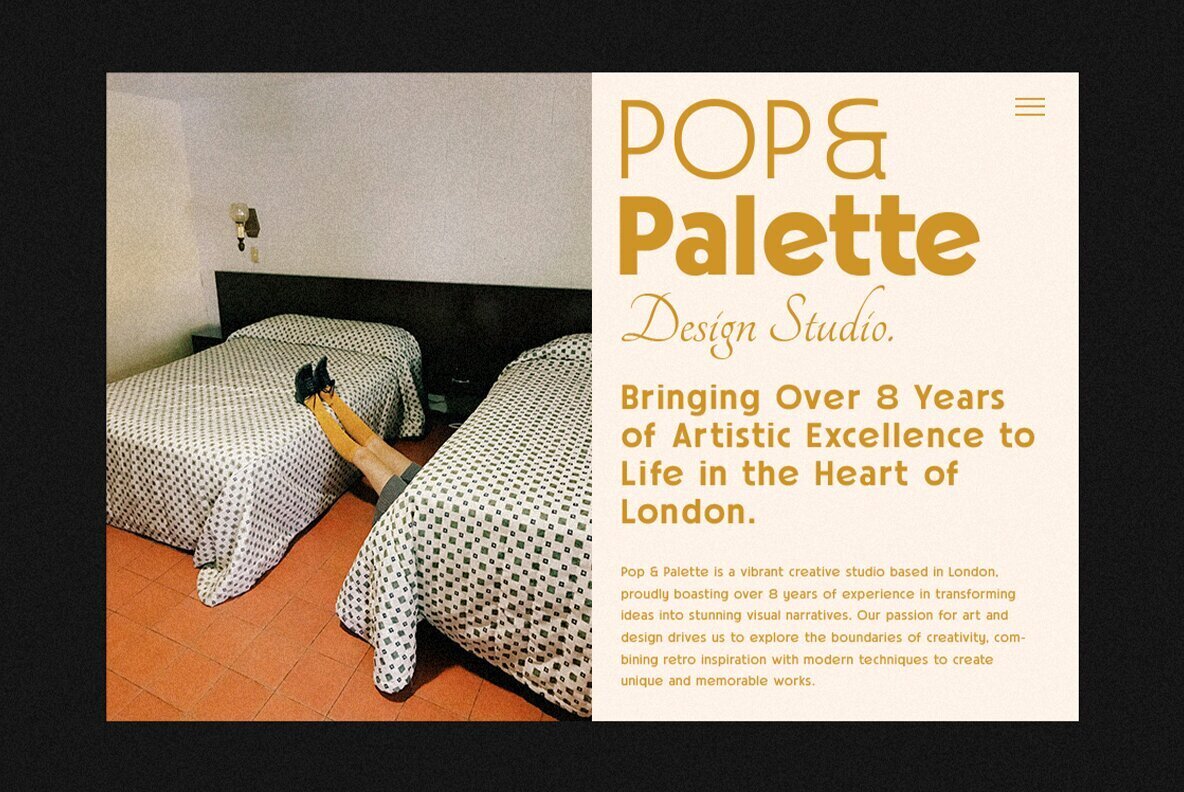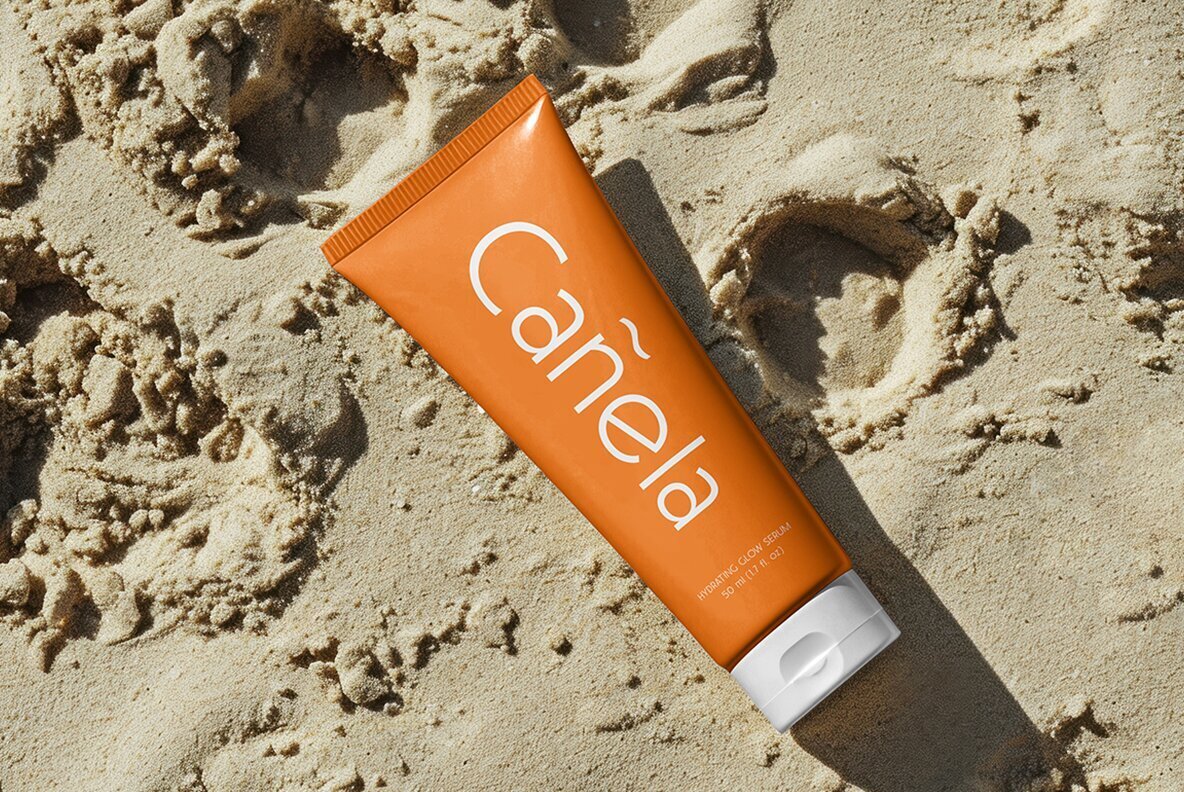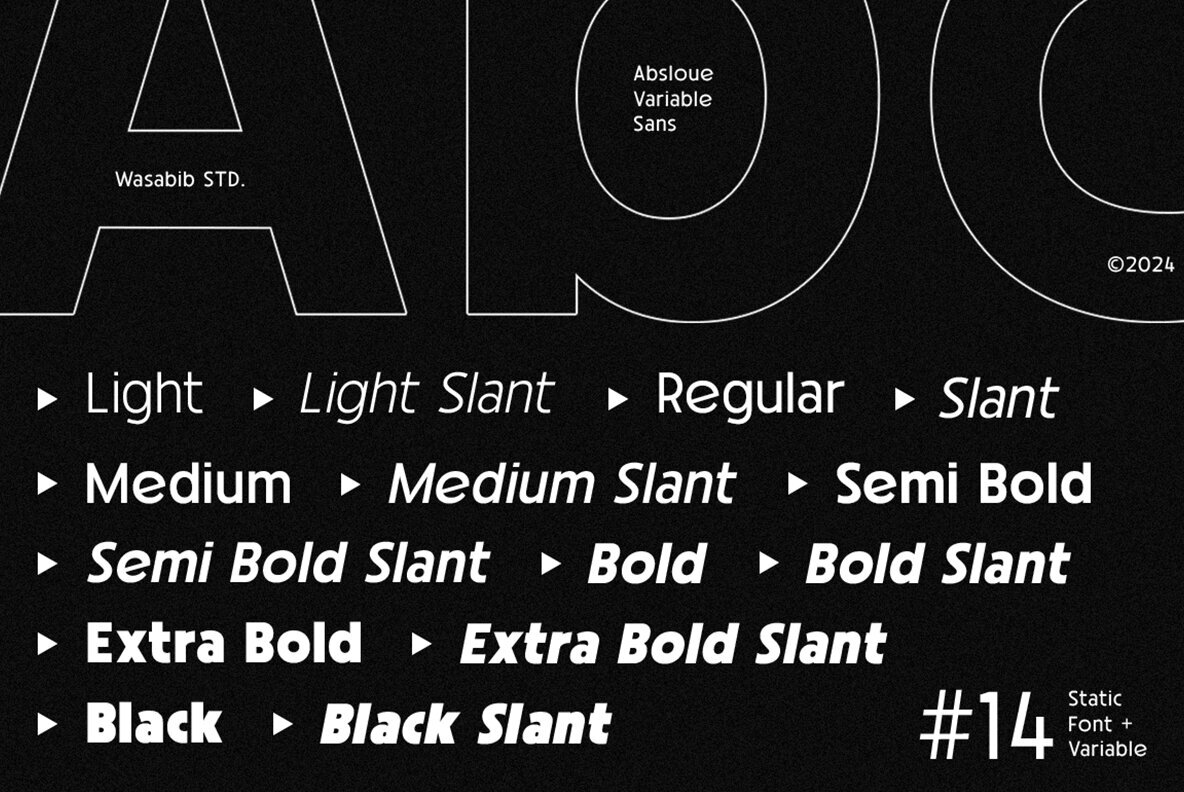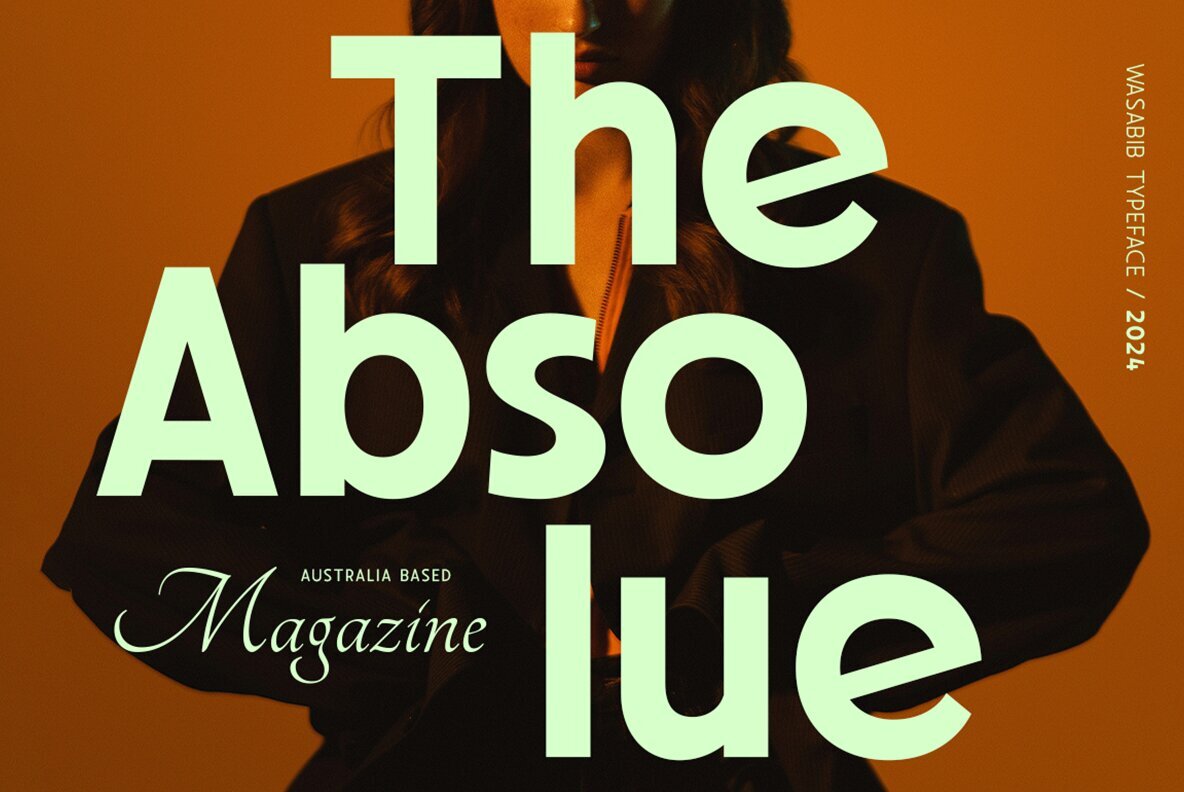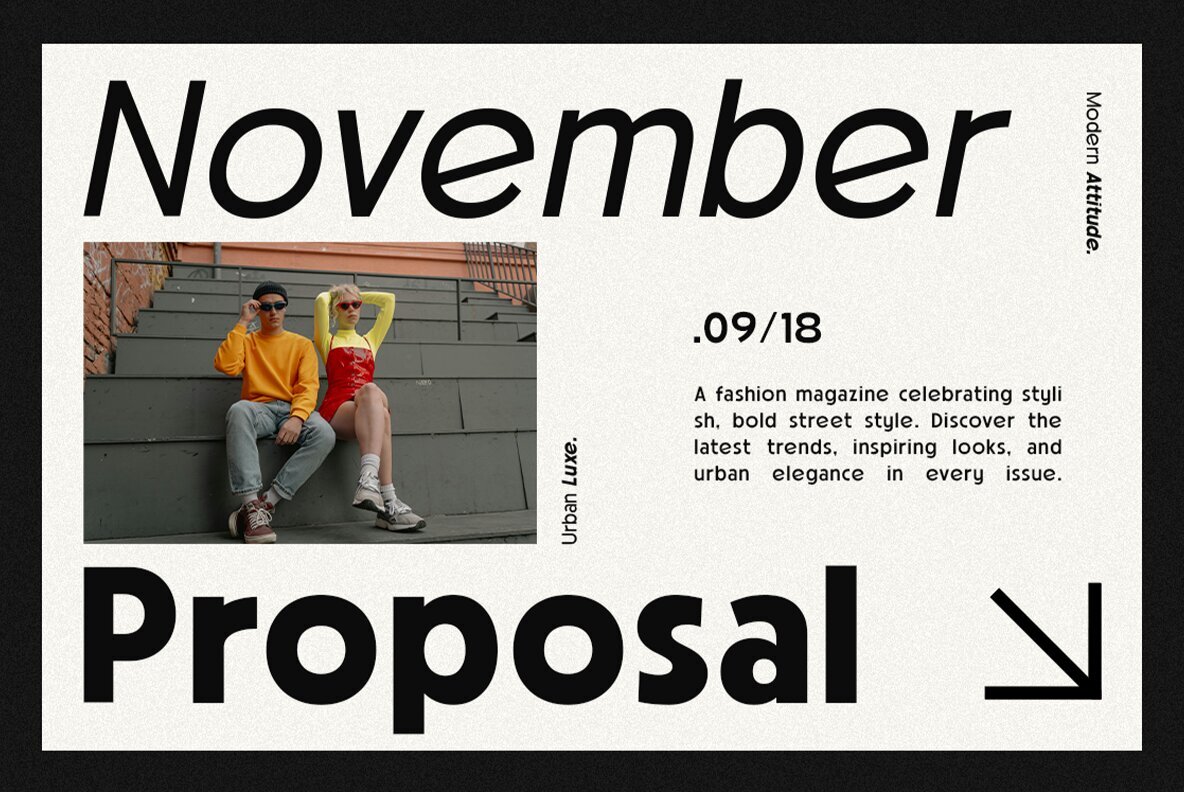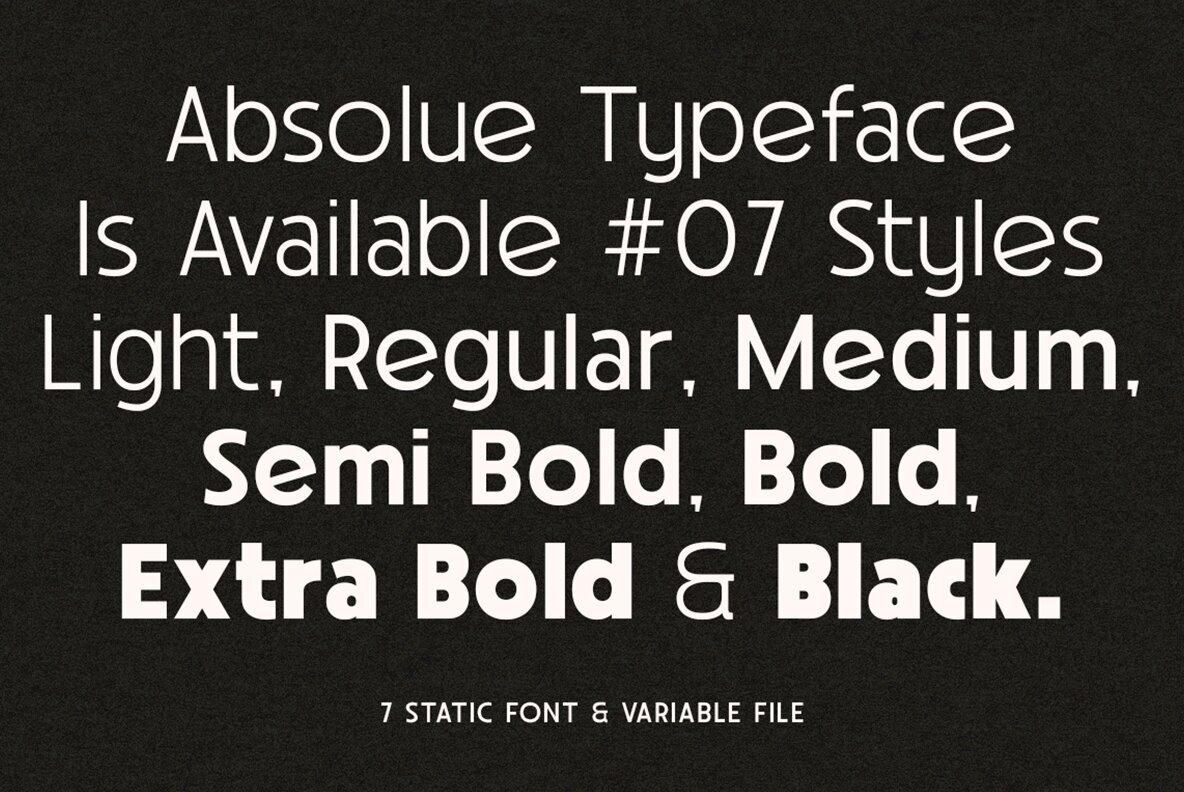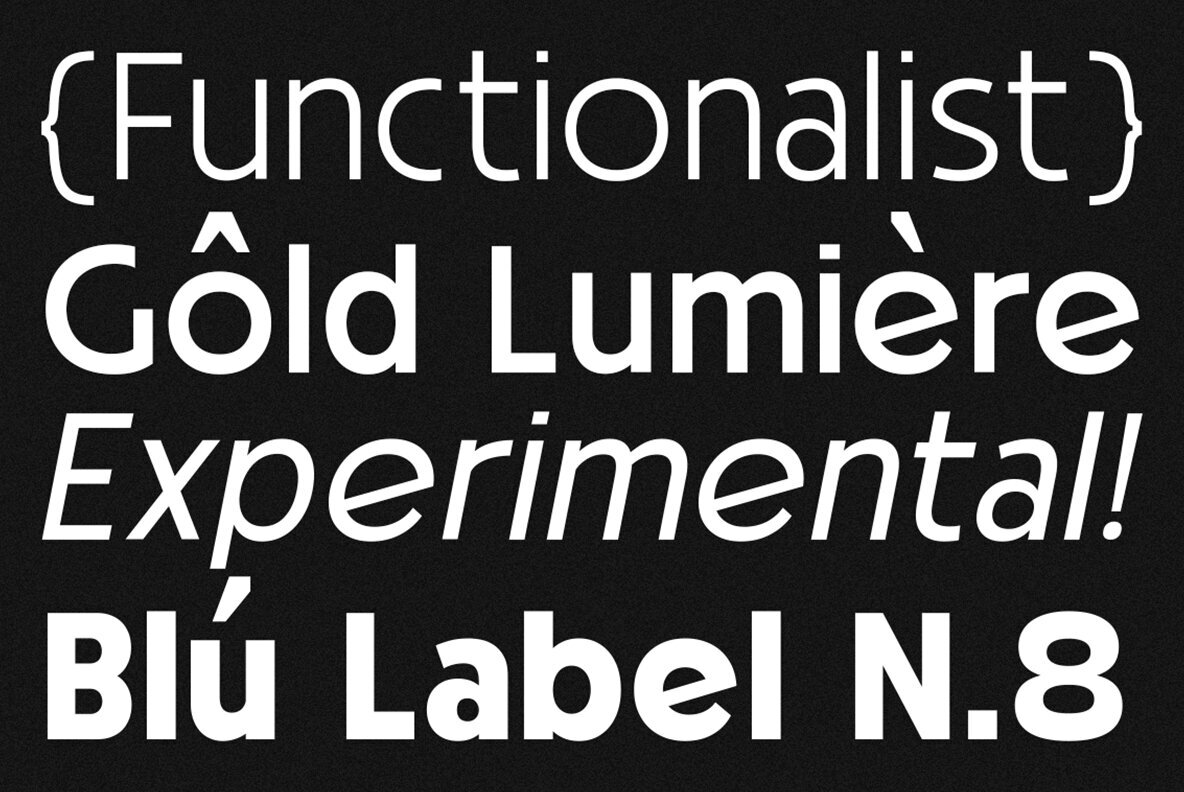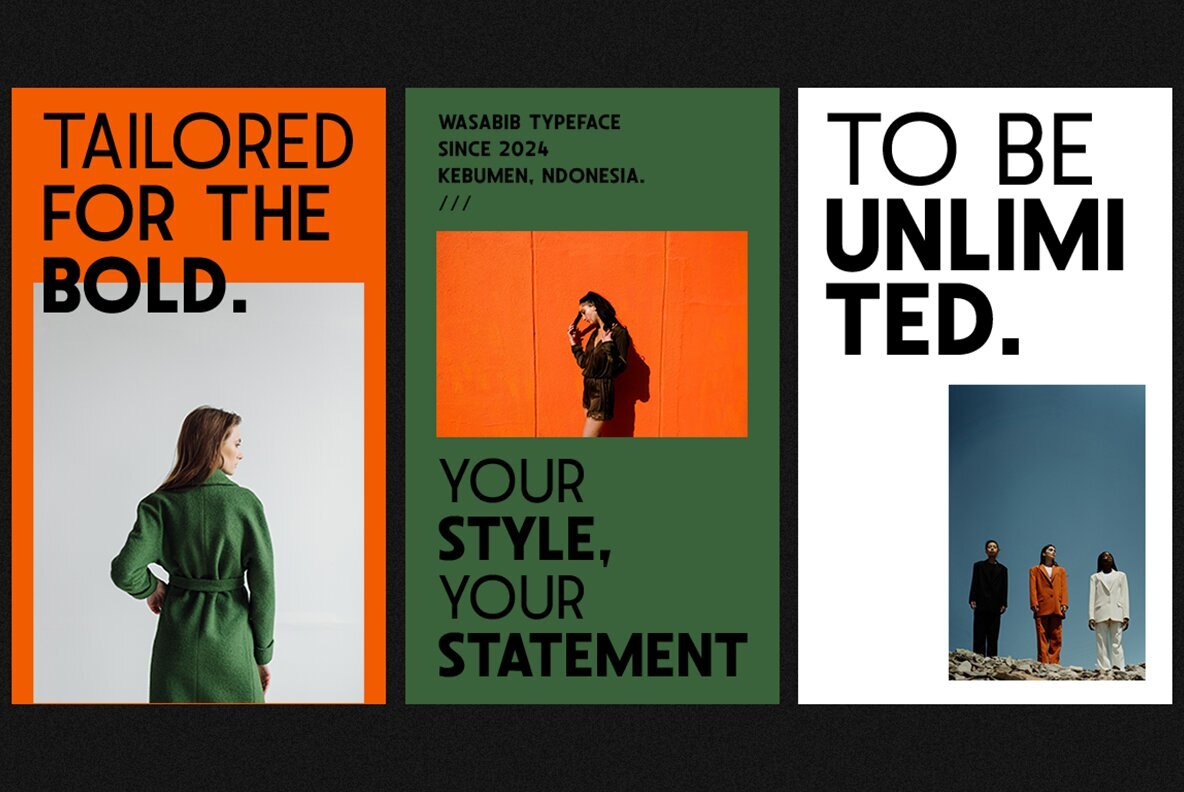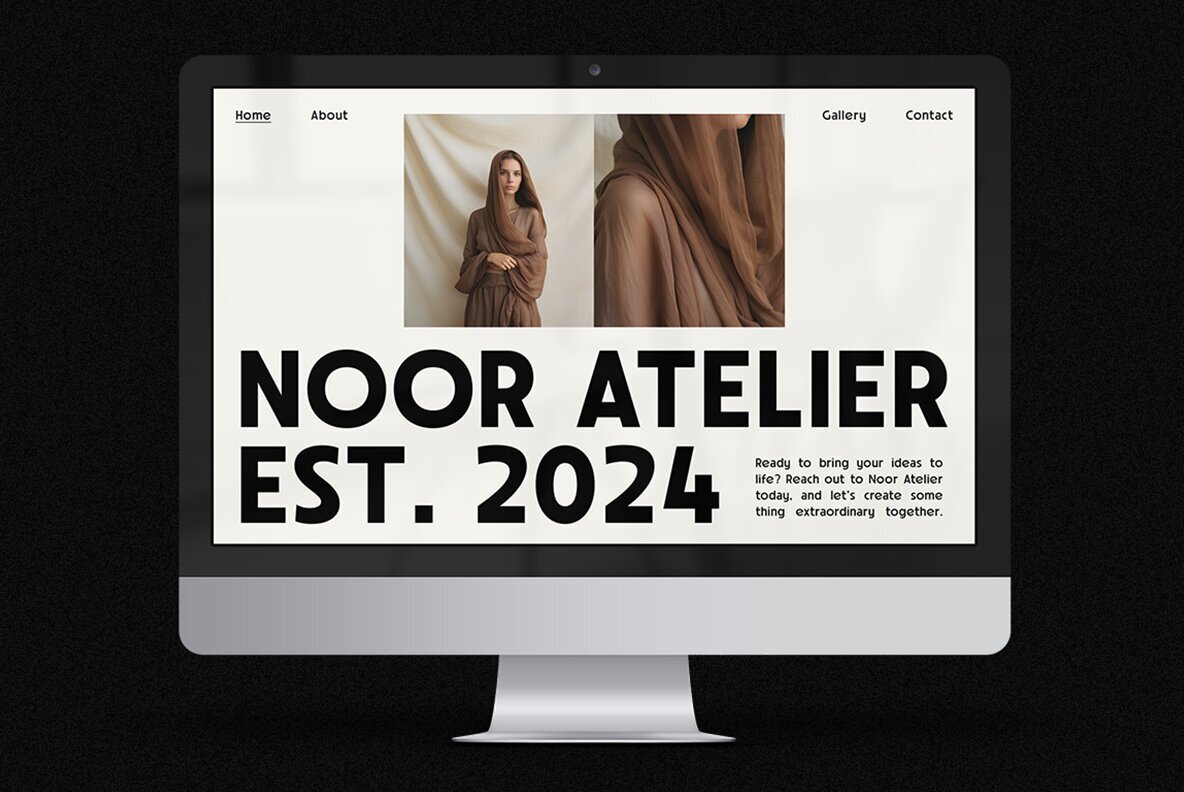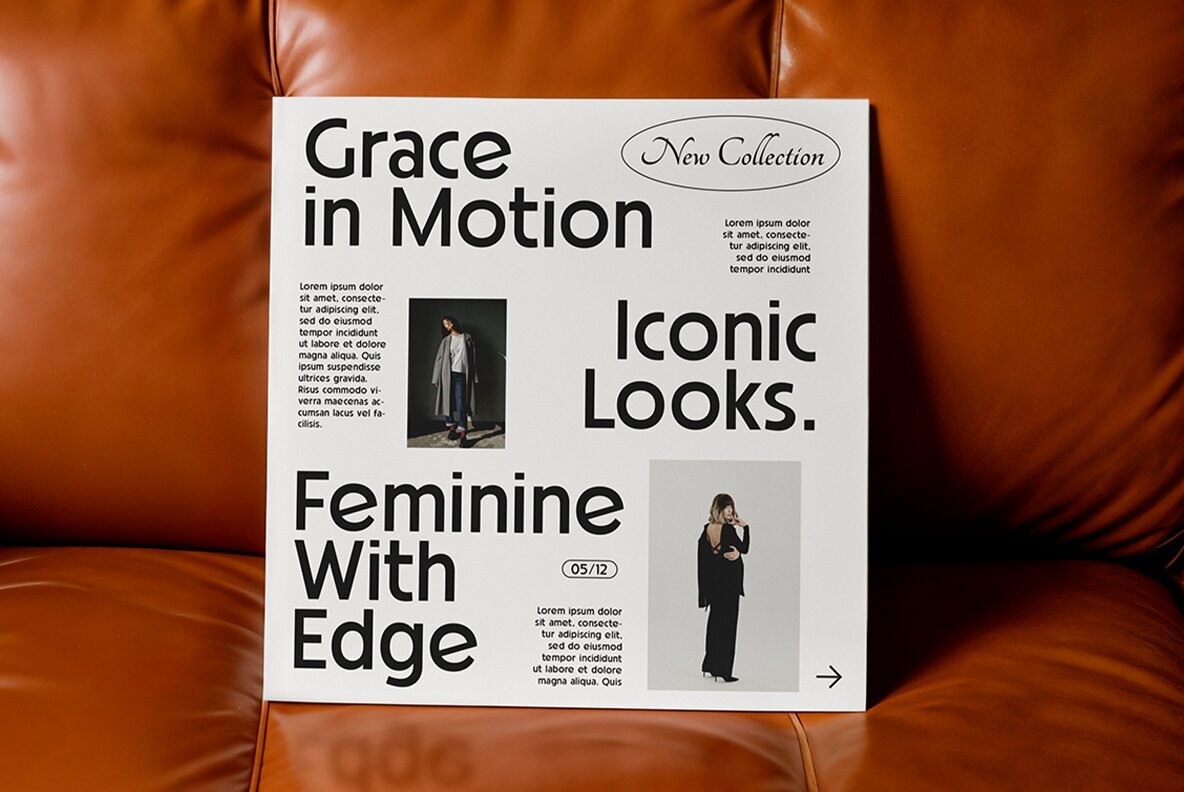
Absolue Font
Absolue is a versatile sans serif typeface designed for flexibility and adaptability in a wide range of design projects. Its clean and modern aesthetic makes it perfect for branding, logo design, headlines, and more. Whether you're working on website content or book layouts, Absolue delivers sophistication and clarity, ensuring your designs stand out.
The typeface’s variable font format allows for seamless customization to match your project's specific requirements, making it an excellent choice for varied media applications. Absolue provides the perfect balance of elegance and readability, making it a go-to option for graphic and digital designers seeking a contemporary and professional look.